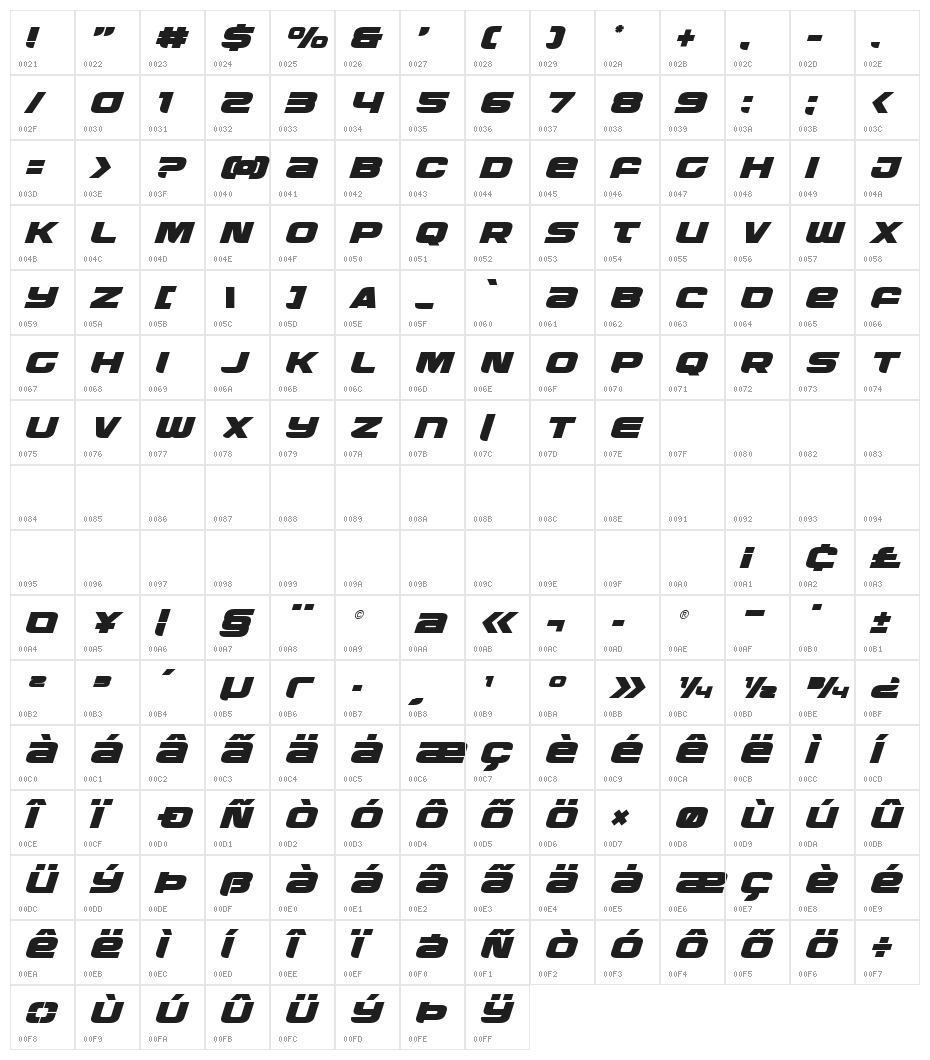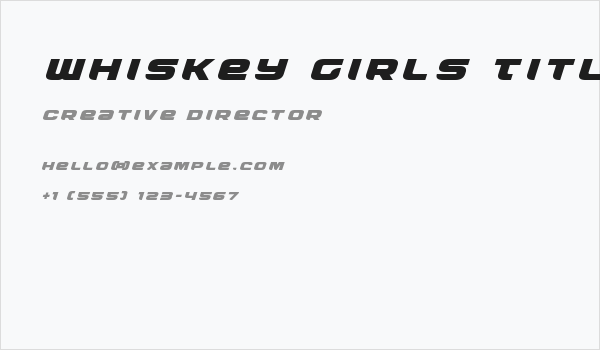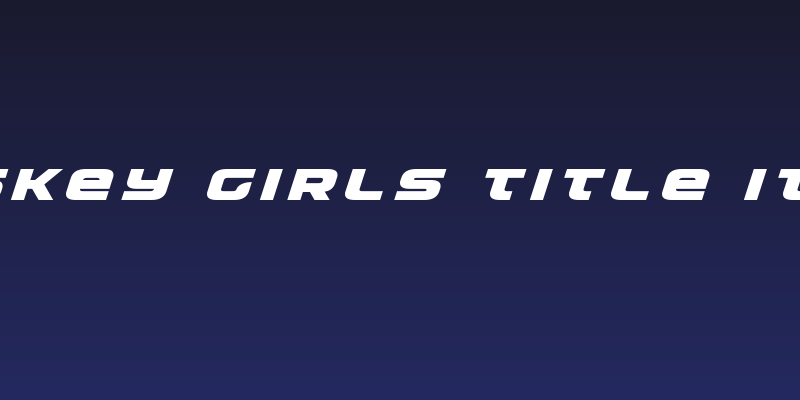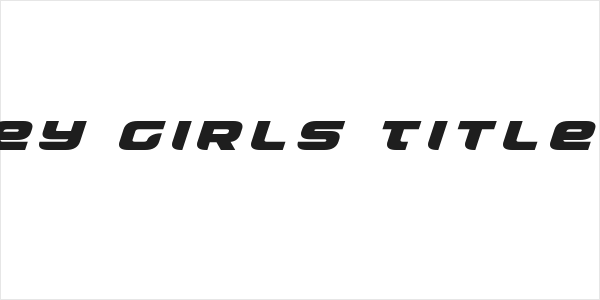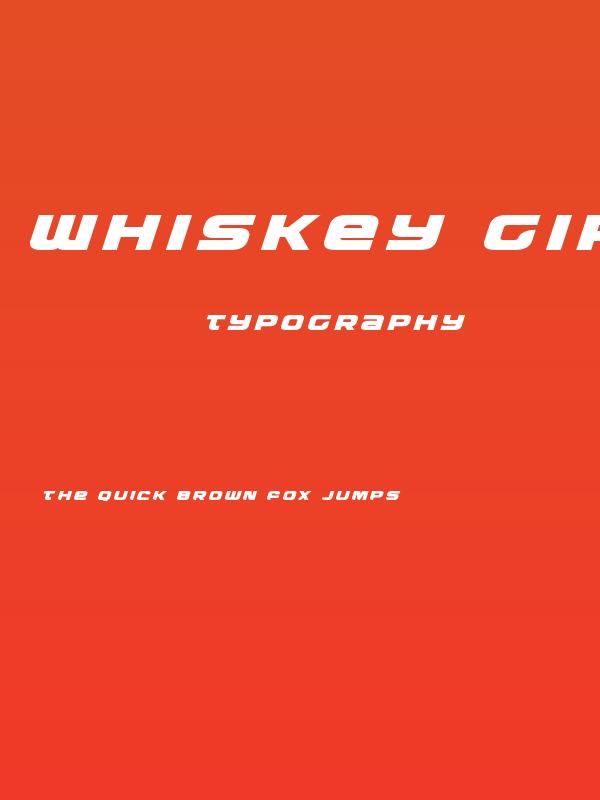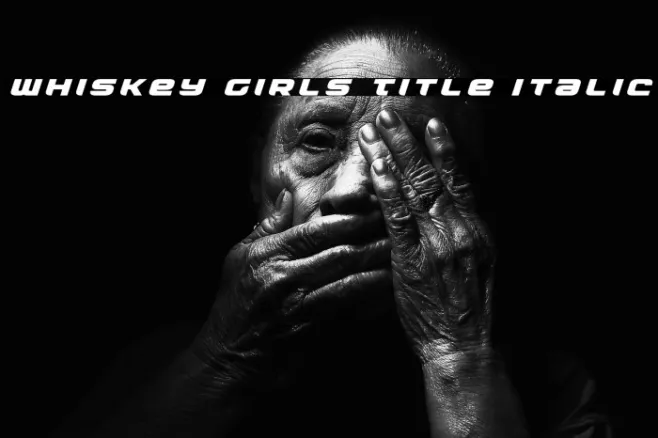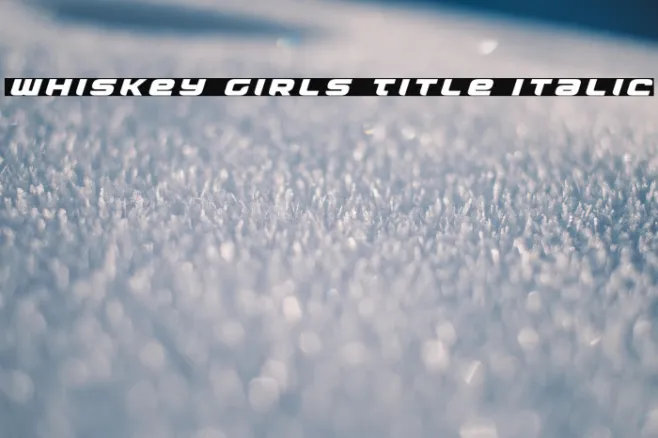
Whiskey Girls Title Italic Font
Whiskey Girls Title Italic Description
This font features a bold and dynamic style with a distinct italic slant, giving it a sense of movement and energy. The characters are wide and have a modern, futuristic appearance, with smooth curves and sharp edges that create a sleek and polished look. The uppercase and lowercase letters maintain a consistent style, while the numerals and special characters complement the overall design. The font's boldness and italic nature make it stand out, suitable for eye-catching displays and titles.
WHISKEY-GIRLS-TITLE-ITALIC UPPERCASE
WHISKEY-GIRLS-TITLE-ITALIC LOWERCASE
WHISKEY-GIRLS-TITLE-ITALIC OTHER CHARS
| Proposed Projects | Ideal for use in branding, sports team logos, dynamic posters, and modern advertising campaigns. |